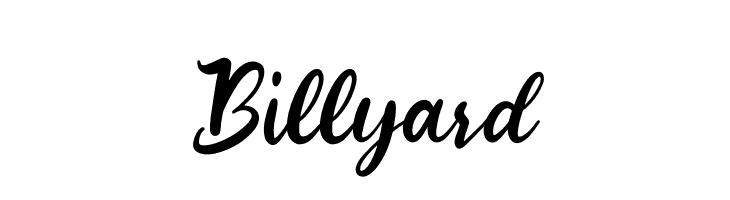
A dynamic and elegant script font with flowing, bold letterforms.
A playful, handwritten font with smooth, rounded edges and a friendly appearance.
A bold, brush-style script font with a dynamic, handwritten feel.
A playful, modern handwritten font with a casual and approachable style.
An elegant, flowing script font with decorative swashes and balanced strokes.
A playful and elegant script font with flowing, cursive letterforms.
A playful, bold handwritten font with smooth, rounded edges and lively character.
A playful, handwritten font with a casual and friendly vibe.
A flowing, cursive font with elegant, connected strokes.